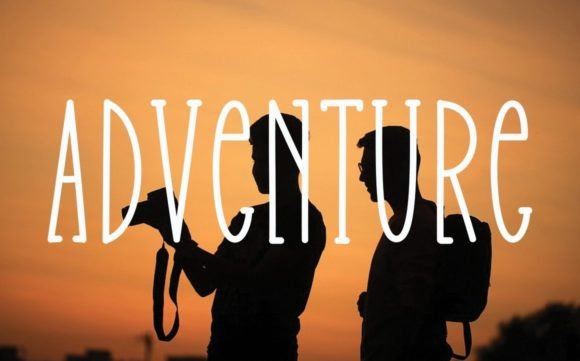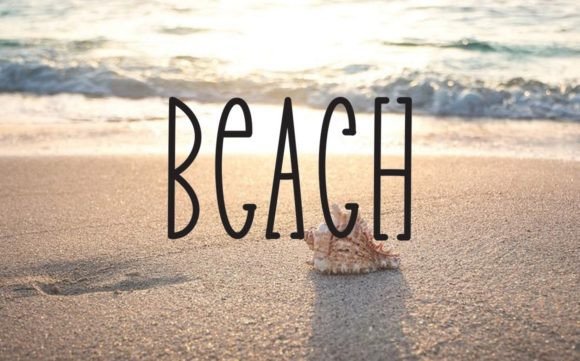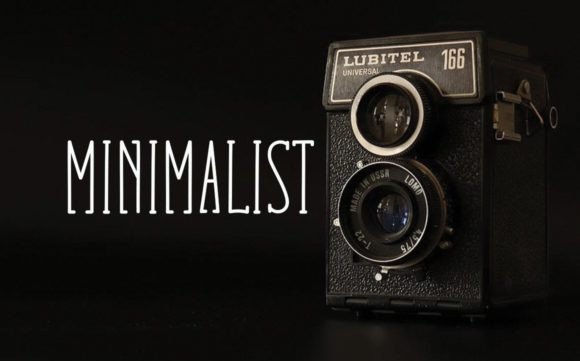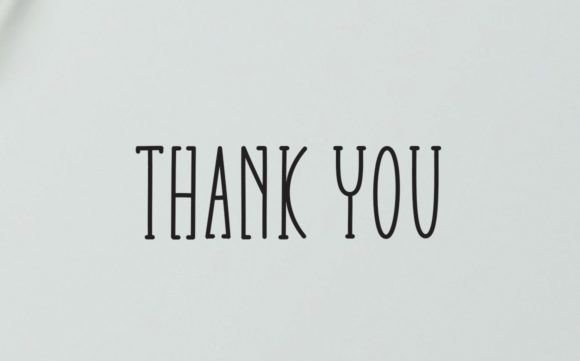
Paradise Font
About Paradise Font
“Paradise” is an enchanting handwritten font that introduces a touch of magic to your designs. With its versatility, this font spans a wide spectrum of applications, making it suitable for everything from greeting cards to headlines. Infusing a romantic and captivating ambiance, “Paradise” is sure to elevate the charm of your next project.
The enchantment of “Paradise” unfolds through its handwritten style, imbuing your text with a personal and whimsical touch. The flowing characters and distinctive charm make it an ideal choice for various design contexts where a romantic and enchanting atmosphere is desired.
The font’s versatility becomes evident as it seamlessly adapts to different applications. Whether crafting heartfelt greeting cards or designing attention-grabbing headlines, “Paradise” enhances your text with a touch of magic, resulting in a visually appealing and engaging outcome.
The inherent romantic feel within “Paradise” positions it as an excellent choice for projects seeking to evoke emotions and establish a connection with the audience. The font’s charm introduces a delightful element to your designs, leaving a lasting impression and creating a sense of invitation.
In essence, “Paradise” transcends being just a font; it serves as a design asset that injects enchantment and romance into your creative projects. Embrace its handwritten allure and witness how it transforms your greeting cards, headlines, and more into artistic expressions that resonate with a romantic and captivating feel. Allow “Paradise” to be the magical element that enhances your next design endeavor, leaving a lasting impression on those who encounter it.